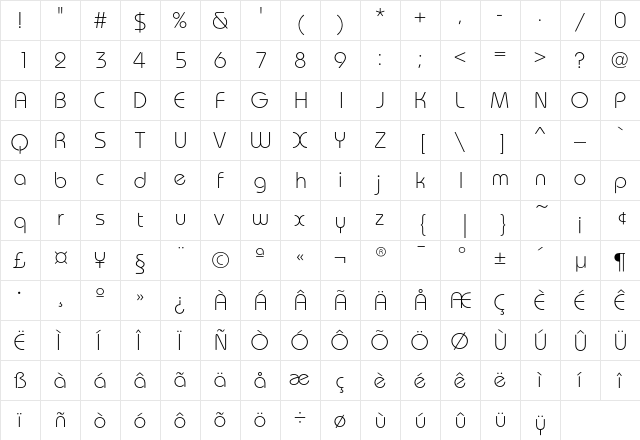
BauhausEF-Light Regular Font Preview
BauhausEF-Light Regular
Design Context for BauhausEF-Light Typeface
BauhausEF-Light takes a measured approach to typography — its balanced proportions and neutral character make it a reliable workhorse for both digital and print work. Its slender proportions lend an understated elegance to any composition.